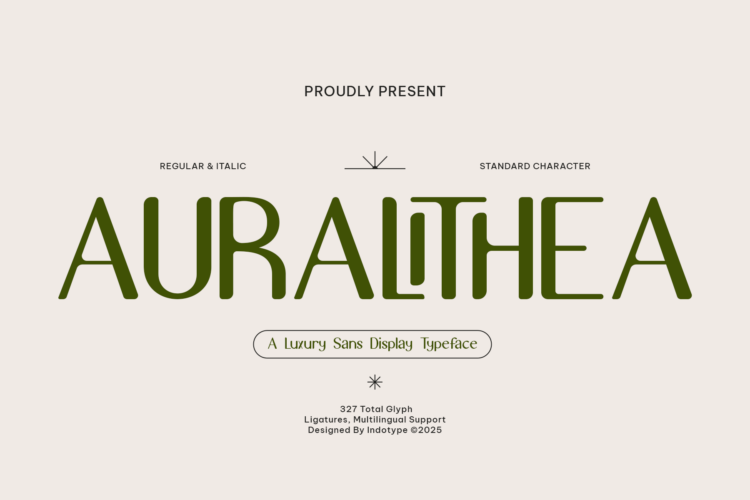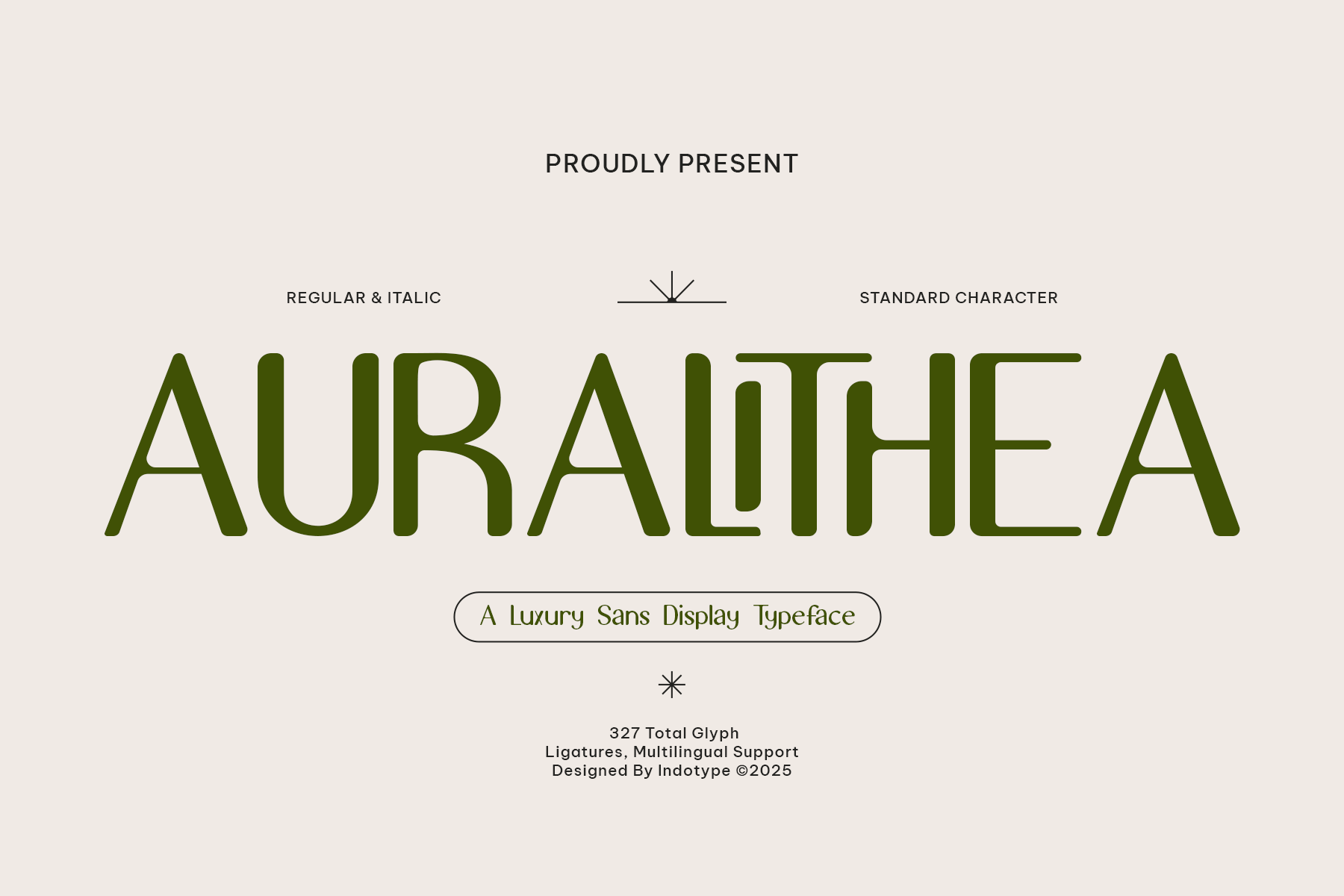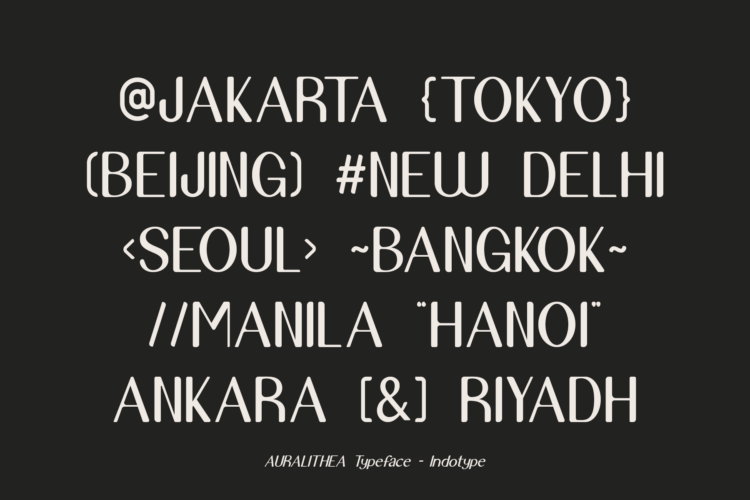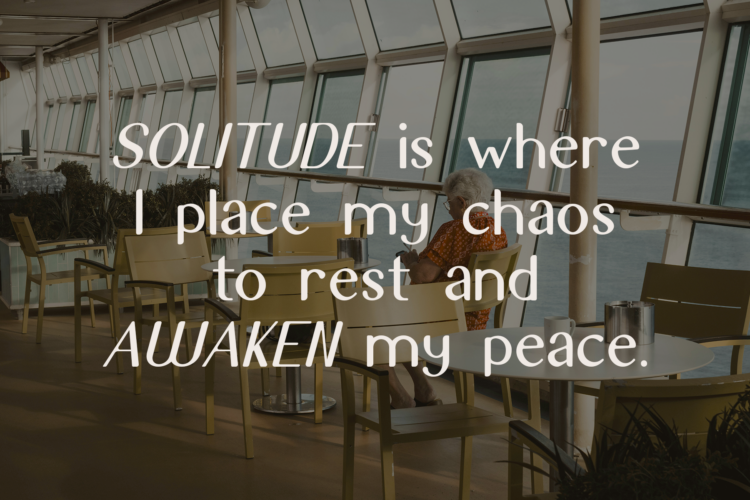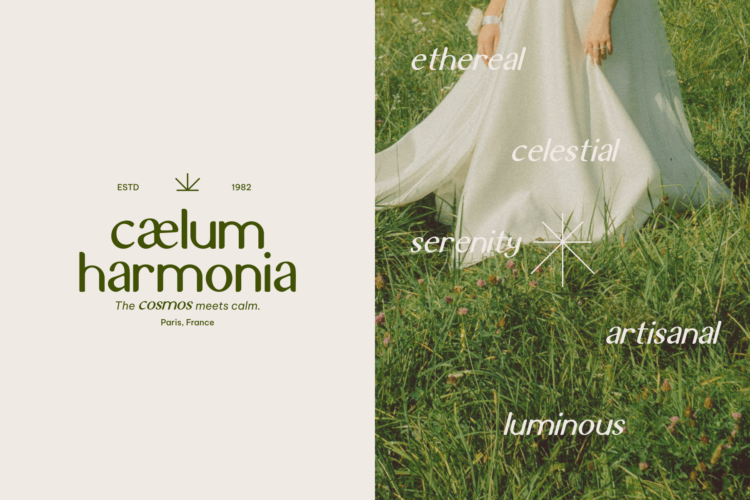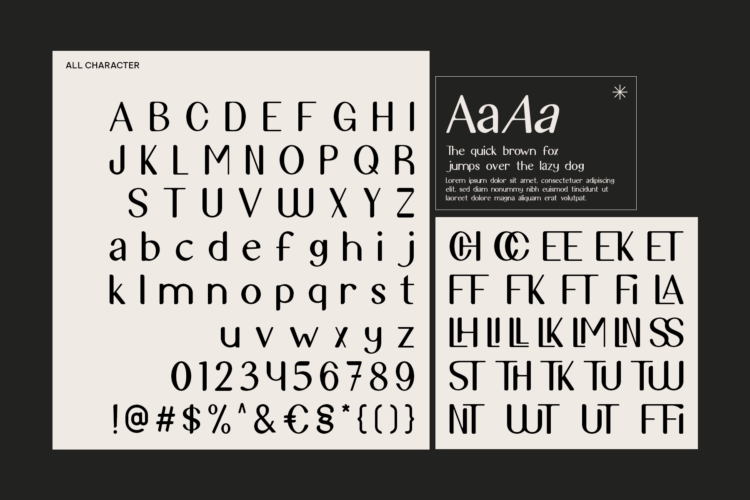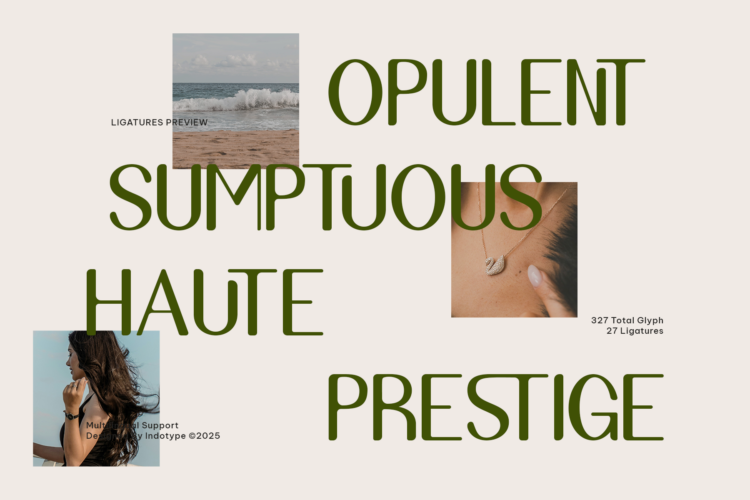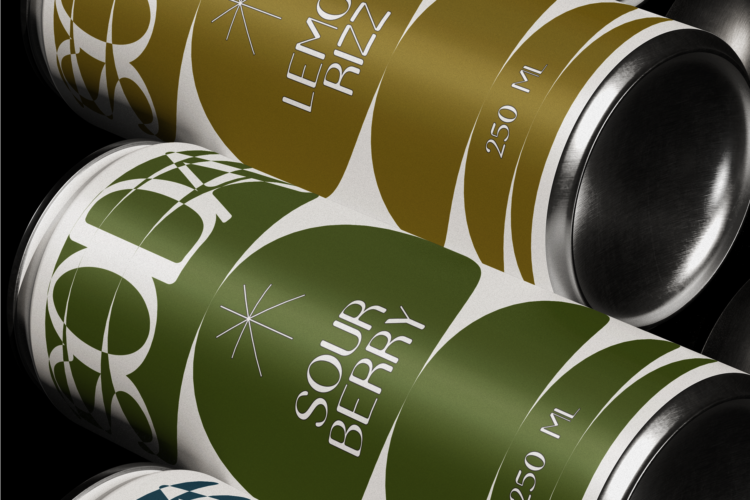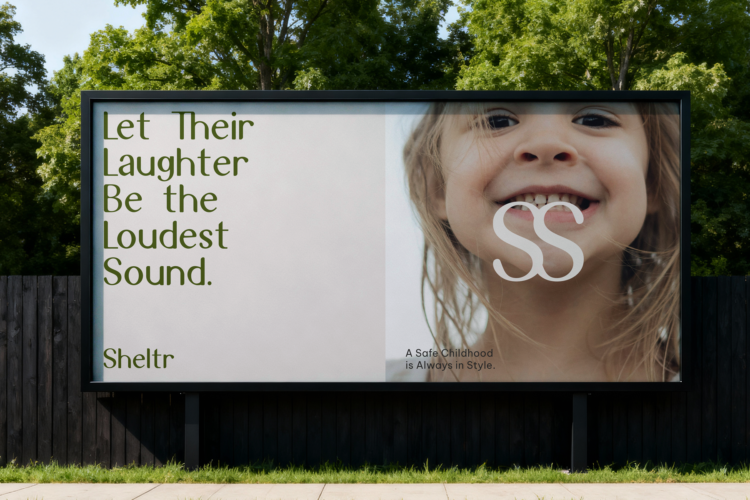
Auralithea Regular
Auralithea Italic
Auralithea is the epitome of sophisticated minimalism, a luxury sans-serif display typeface designed to elevate your brand with understated elegance. Characterized by its clean lines, refined proportions, and impeccable balance, Auralithea exudes a sense of exclusive quality and modern prestige. It masterfully blends clarity with character, making it perfect for brands that wish to communicate authority and style without saying a word. This comprehensive family includes both Regular and Italic styles, offering tonal versatility for your designs. With an extensive set of 327 total glyphs, advanced typographic features like ligatures, and full multilingual support, Auralithea is as functional as it is beautiful. It is the definitive choice for high-end fashion labels, luxury product packaging, sophisticated editorial headlines, and any identity that demands a timeless, global appeal.
• Ideal for: Luxury Fashion Branding, Cosmetic Packaging, Premium Logotypes, Editorial Headlines, Corporate Sophistication, High-End Websites.
• Classification: Display, Sans-Serif, Luxury, Geometric, Modern.
• Attributes: Elegant, Refined, Minimalist, Prestigious, Clean, Versatile, Sophisticated.
• Standard Character A-Z, a-z, 0-9, Punctuation & symbols
• Regular and Italic Style
• Multilingual Support accents and diacritics
• Including Alternate & Ligature Glyphs
Auralithea – Luxury Sans Display